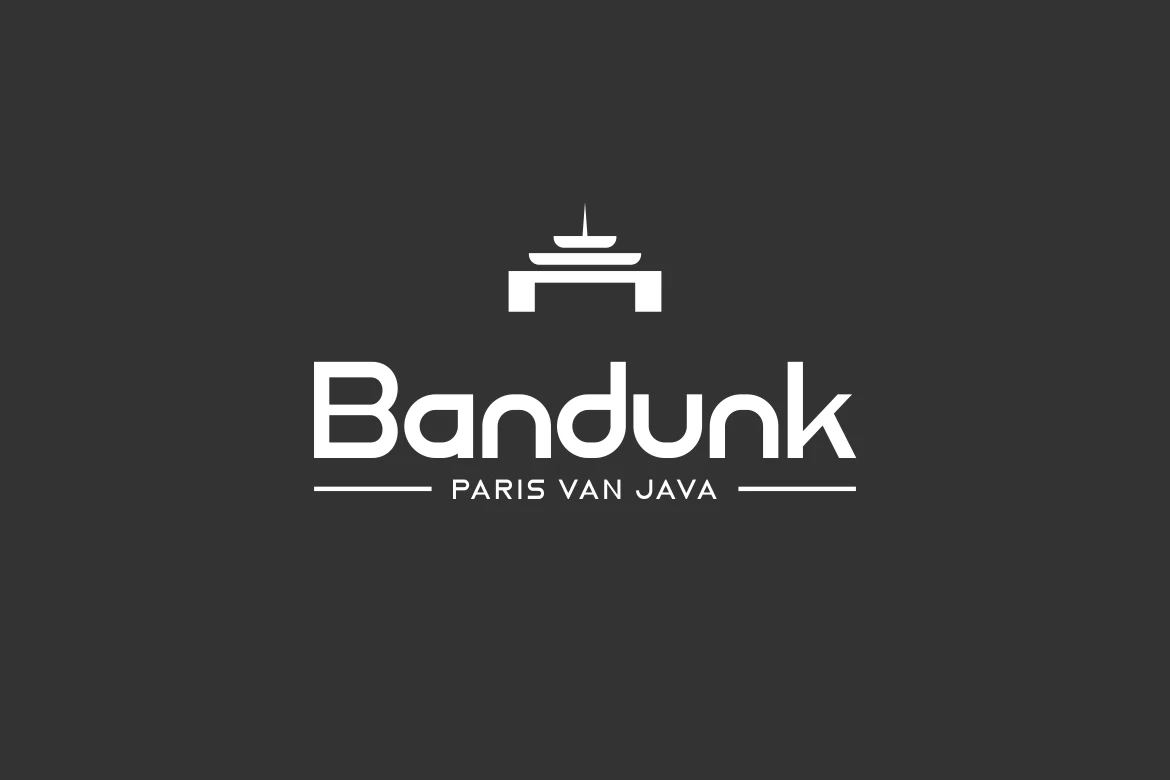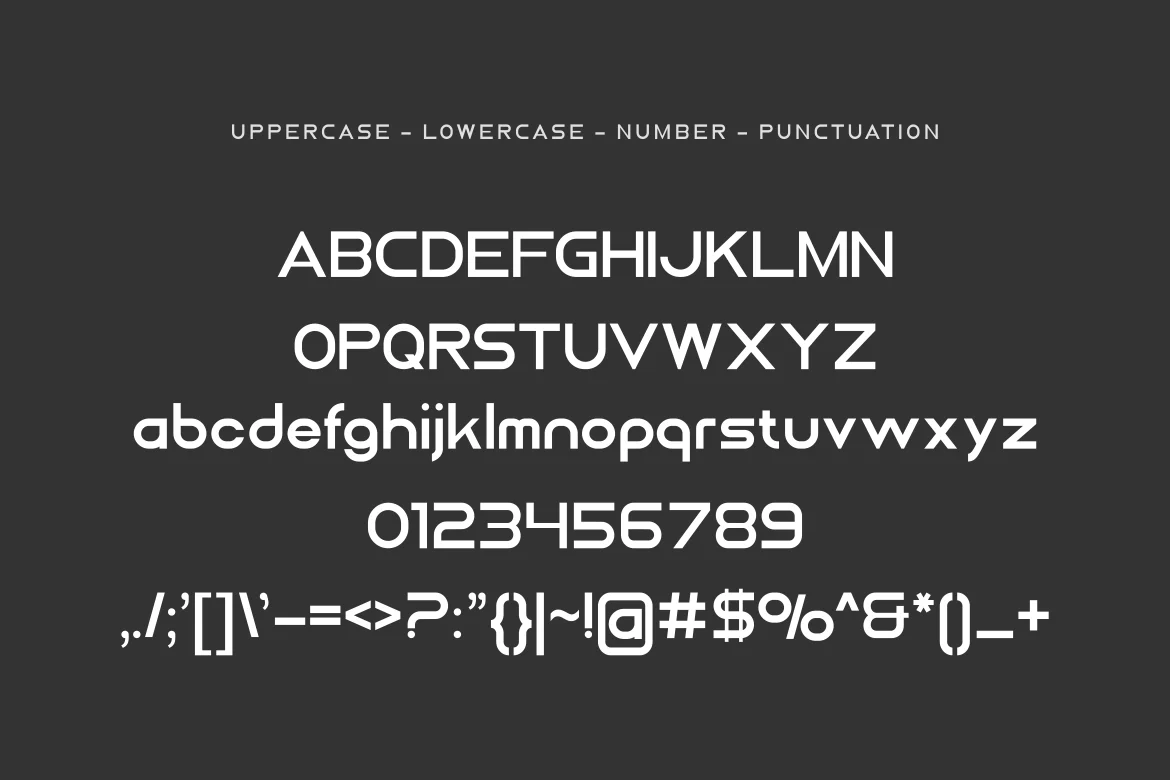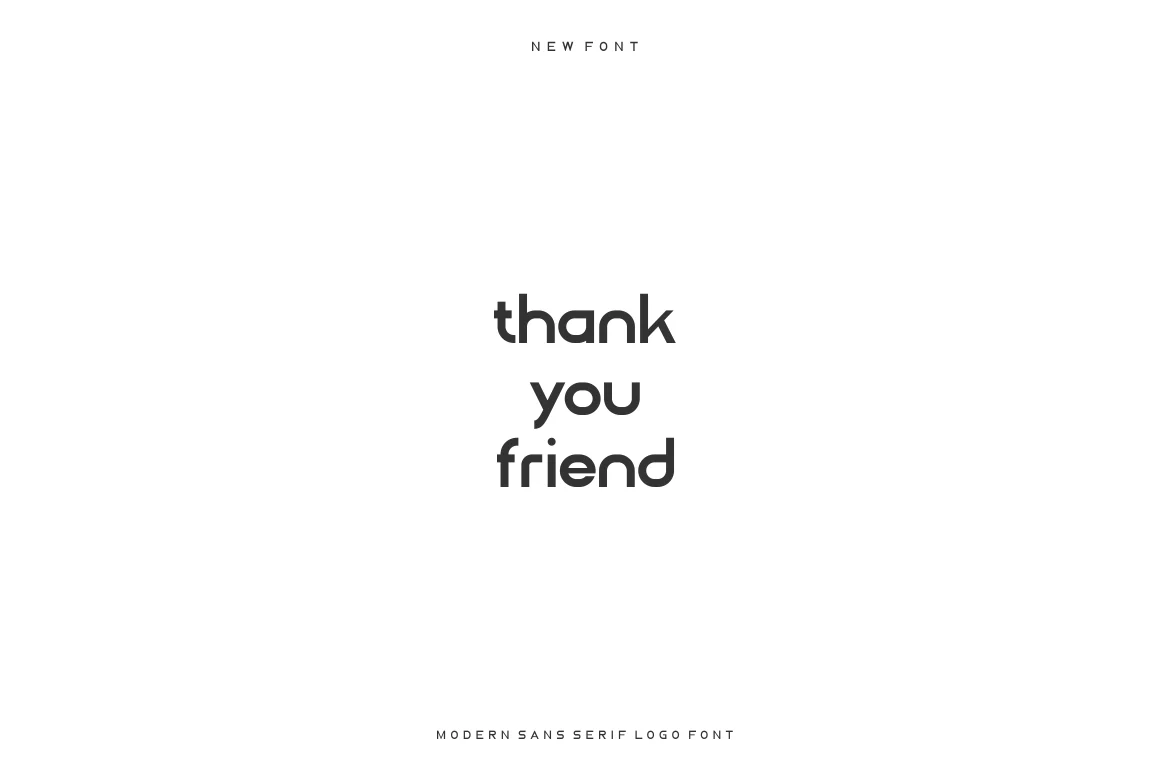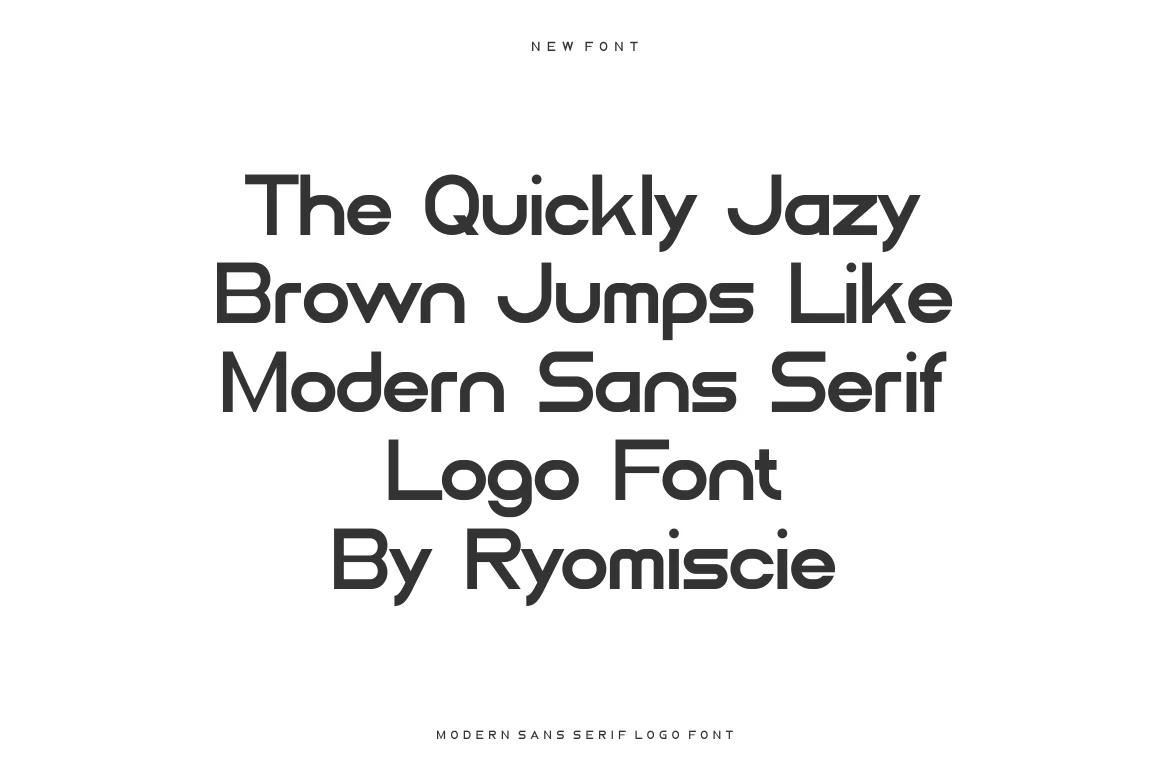
Pidon – Modern Logo Font
Introducing our new product Pidon Font - Modern Logo Font
Pidon Font- Modern Font is a bold and authentic display font. The font is suitable for any branding project like logo,
t-shirt printing, esport, and many more. outstanding in a wide range of contexts.
- Pidon Uppercase
- Pidon Lowercase